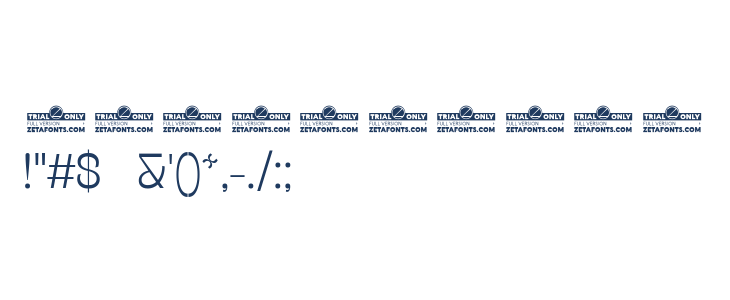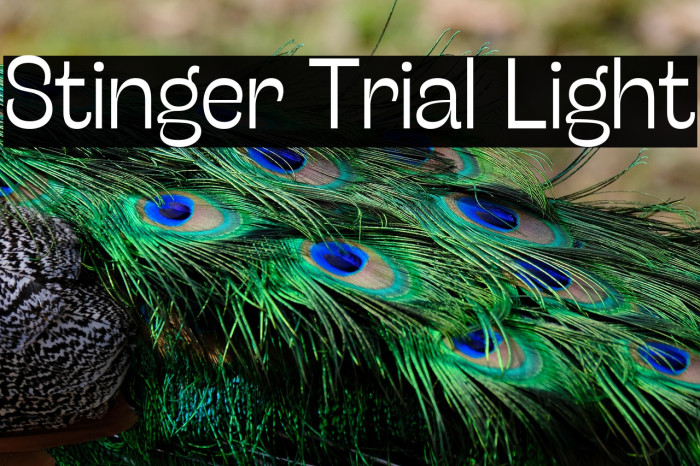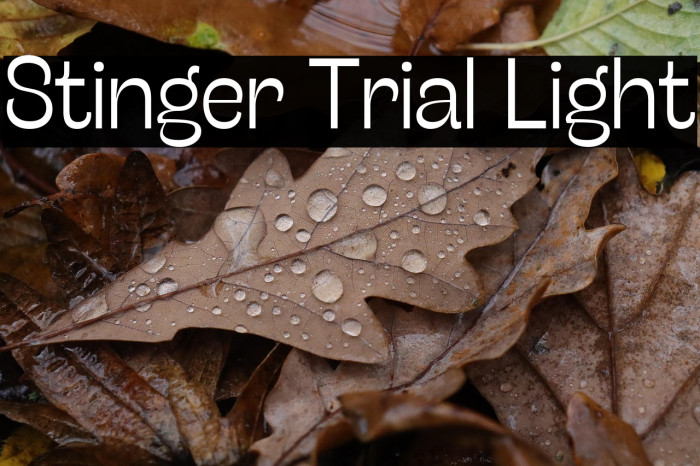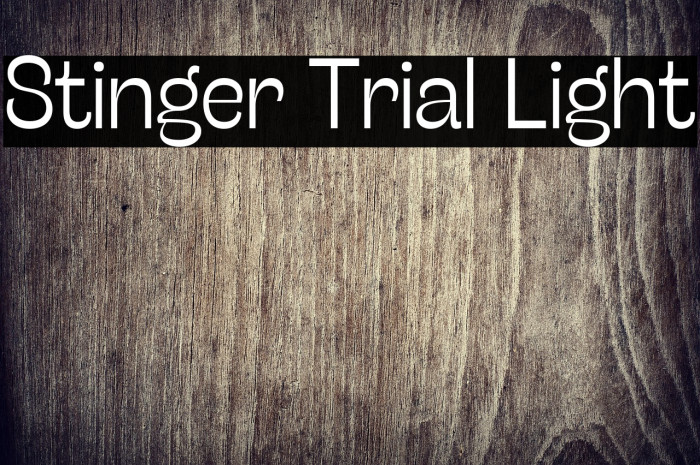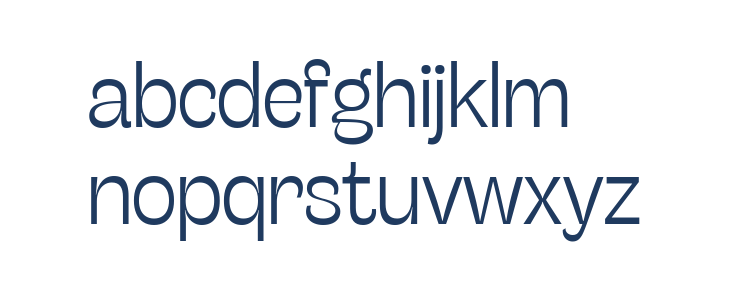
Stinger Trial Light Font
Stinger Trial Light Description
This font features a clean and modern sans-serif design with a light weight, making it ideal for minimalist and contemporary projects. The characters are well-proportioned with a consistent stroke width, contributing to its sleek appearance. The uppercase and lowercase letters maintain a uniform height, enhancing readability. The numerals and special characters are designed with the same attention to detail, ensuring a cohesive look across all text elements. The font's simplicity and elegance make it versatile for various design applications.
| Proposed Projects | Ideal for branding, web design, editorial layouts, and corporate materials. |